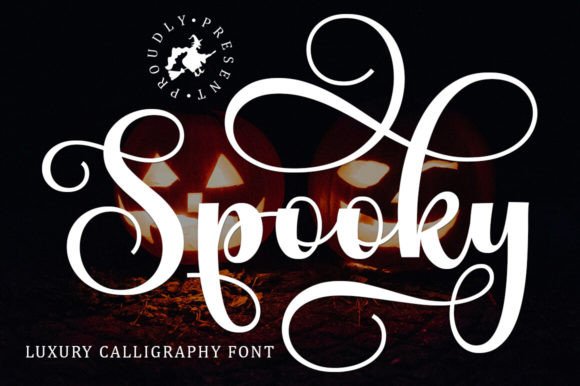
Spooky Font
Introducing Spooky font – a striking typeface meticulously crafted to ascend your creative projects to unparalleled heights. Woven into the very essence of this font is the potential to imbue your illustrative visions with elevated aesthetic appeal. Furthermore, the Spooky font is PUA encoded, offering effortless access to an expansive repertoire of glyphs and swashes – perfect for giving your creations that unique, personal touch!